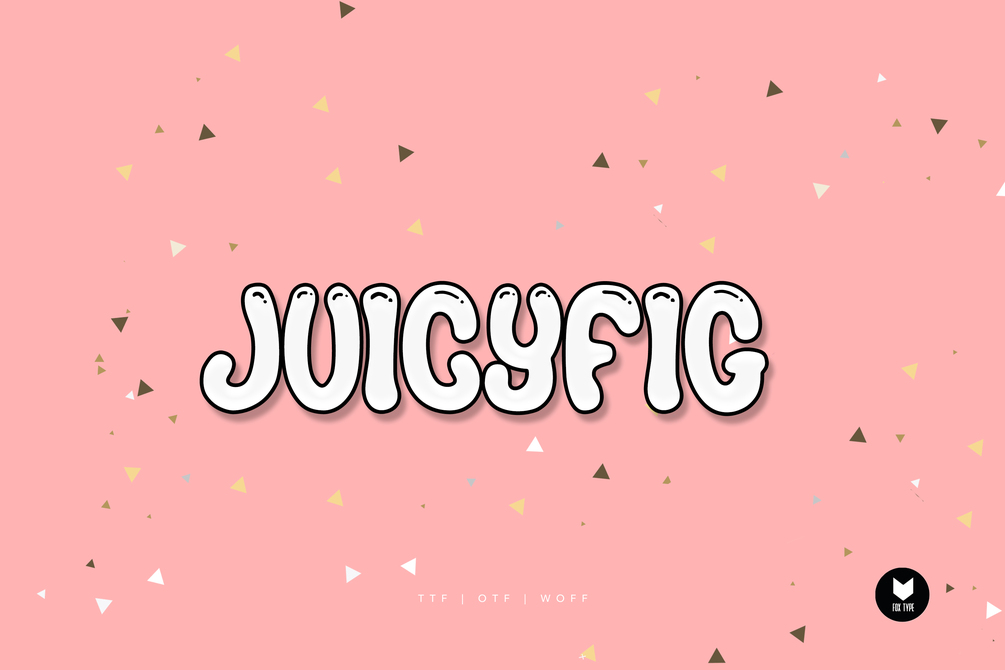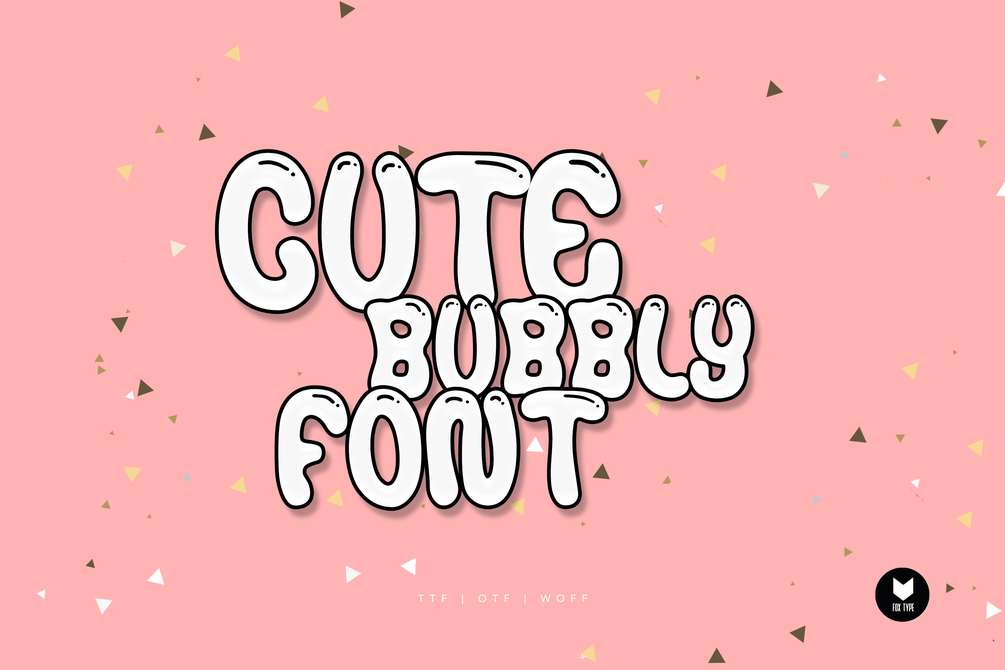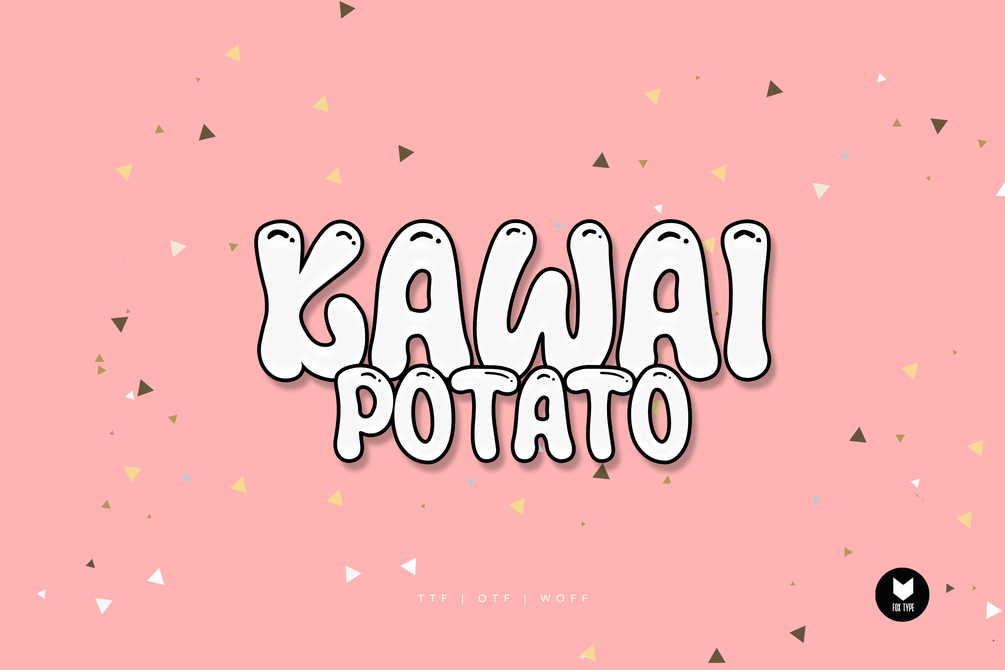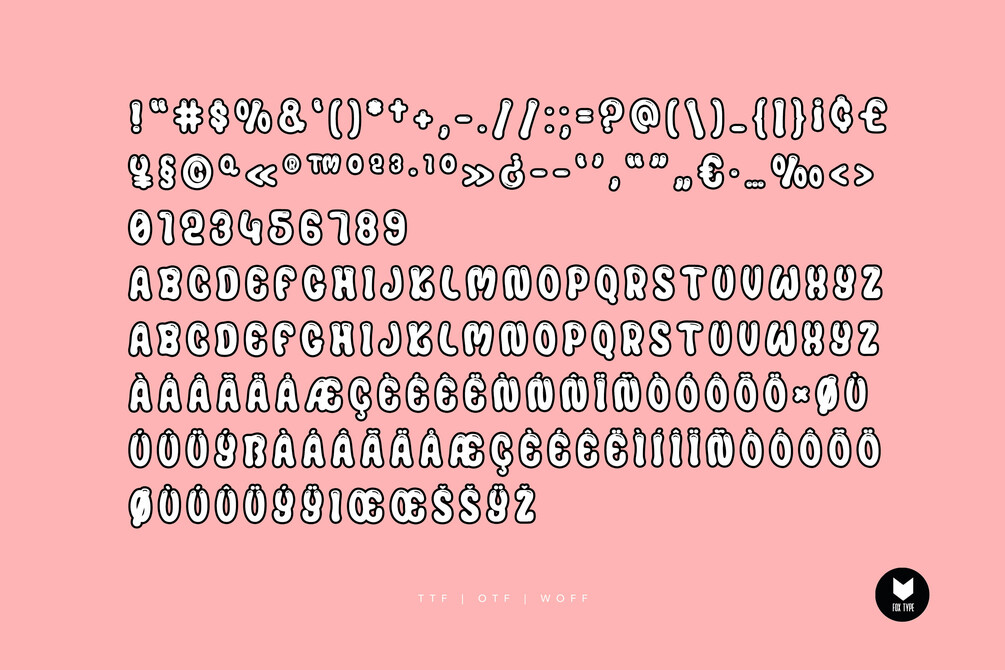
Juicyfig Cute Bubbly Typeface
Juicyfig is a fun, bubbly font that is perfect for headlines and more! This playful cute font is a great way to give your designs a relaxed and playful vibe; It will elevate a wide range of crafting ideas, from cards, to branding, labels and much more.